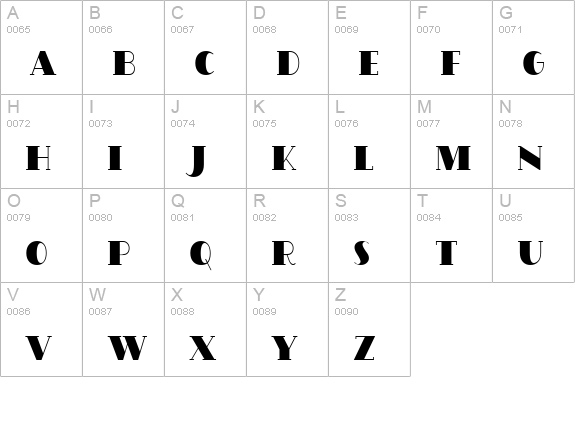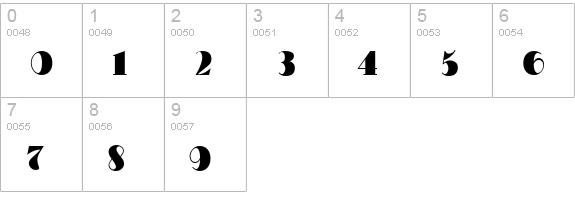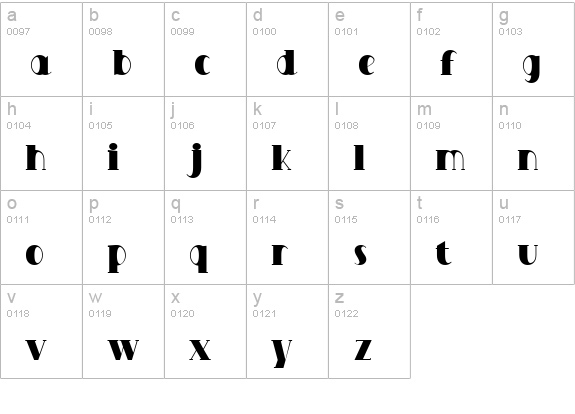
OakParkBlvd Font Details
OakParkBlvd font is a modern and stylish typeface that exudes sophistication and elegance. Its sleek lines and clean curves make it perfect for a wide range of design projects, from branding to advertising to web design. With its versatile and timeless appeal, OakParkBlvd font is sure to make your text stand out and leave a lasting impression on your audience. The best part? OakParkBlvd font is available for free download at FontsMarket.com, making it easily accessible to all designers and creatives looking to add a touch of class to their work. Whether you're working on a personal project or a professional assignment, OakParkBlvd font is the ideal choice for adding a touch of refinement to your typography. Download it today and elevate your designs with this stunning typeface.